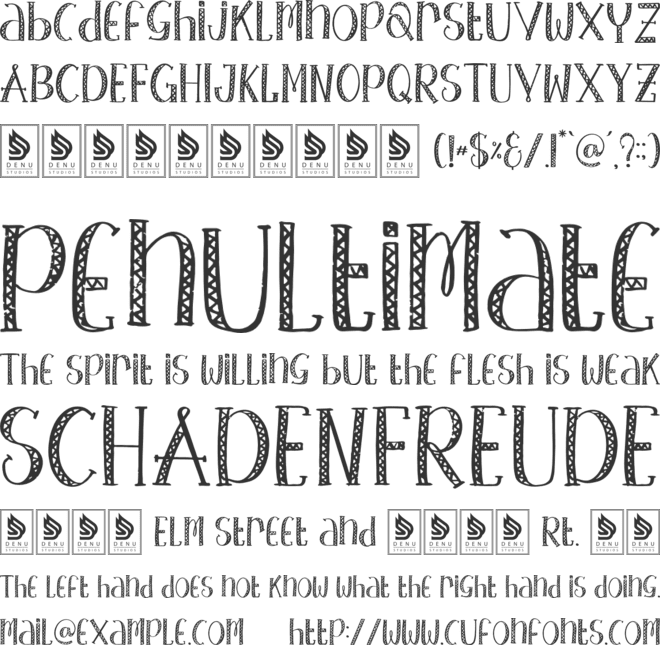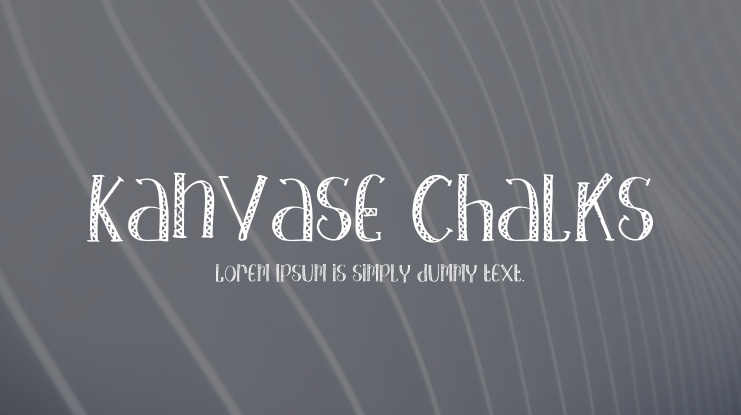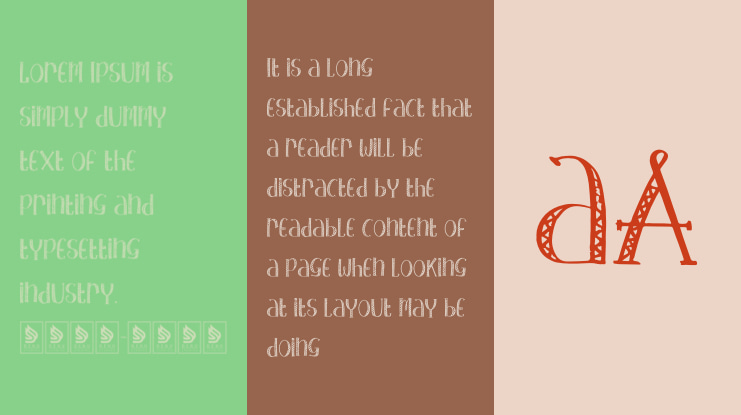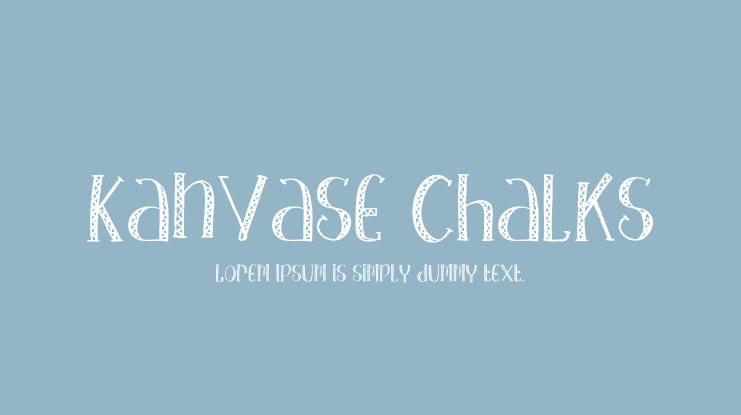
Kanvase Chalks | Handwritten Typeface product packaging, mugs, quotes, posters, shopping bags, t-shirts, book covers, name card, invitation cards, greeting cards, label, photography, watermark, special events, and all your other lovely projects that need a Handwritten Typeface taste.